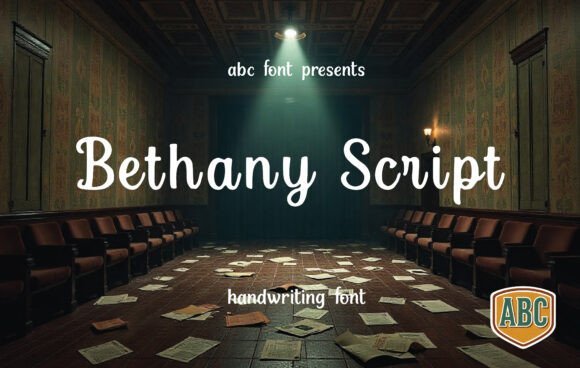
The Perfect Brushstroke: Unleashing the Beauty of Bethany Script Font
Enter the lovely Bethany Script Font, a timeless handwritten font that’s sure to captivate your audience. With its unique and beautiful touch, this font is perfect for creating eye-catching logos, branding, and quotes that make your design come alive. Whether you’re crafting wedding stationery, designing journals, or creating social media magic, Bethany Script Font is a valuable addition to any designer’s toolkit.
Bethany Script Font Key Features
- Font Style: Elegant script font with a classic and sophisticated feel
- Unique Characteristics: Handwritten feel, subtle flourishes, and elegant connections between letters
Bethany Script Font Review
I’ve had the chance to work with Bethany Script Font, and I must say, it’s a lovely script font that can add a touch of elegance to your designs. ✨ Here are some things that work well:
- Its flowing, handwritten feel makes it perfect for creating invitations, quotes, or other text-based graphics that need a personal touch.
- The font is highly customizable, allowing you to adjust the size, color, and spacing to fit your design needs.
- Bethany Script Font is highly legible, making it a great choice for longer blocks of text or for use in digital interfaces.
- The font may not be suitable for use in small sizes, as the details can become hard to read.
- The font’s flowing nature can sometimes make it difficult to align with other fonts or text elements.
- The font’s high customizability can also make it overwhelming to use, especially for those who are not familiar with font customization.
Overall, I think Bethany Script Font is a great addition to any designer’s toolkit, but it’s not without its limitations. With some careful planning and execution, it can add a beautiful, elegant touch to your designs.
For a more polished look, use Bethany Script Font for headings and pair it with a clean sans-serif font for body text.
Use Bethany Script Font for titles, headings, and other decorative text elements to add a touch of elegance to your design.
Use Bethany Script Font for headings, titles, and other decorative text elements to add a touch of sophistication to your presentation or document.
Tips for Getting the Most Out of Bethany Script Font
Use Bethany Script Font sparingly to avoid overwhelming the viewer.
Pair Bethany Script Font with clean, sans-serif fonts for a balanced look.
Experiment with different font sizes, colors, and styles to find the perfect combination for your design.
Alternatives to Bethany Script Font for Designers
Great Vibes is a beautiful, elegant script font that’s perfect for creating a warm and inviting atmosphere. It’s great for use in wedding invitations, greeting cards, and other special occasions where a touch of sophistication is needed.
Compared to Bethany Script Font, Great Vibes has a more flowing and organic feel, with a softer and more delicate appearance. While Bethany Script Font is more formal and elegant, Great Vibes is more relaxed and casual.
Ostrich Sans is a modern, sans-serif font with a touch of script flair. It’s perfect for use in digital design, such as websites, social media, and mobile apps, where a clean and modern look is needed.
Compared to Bethany Script Font, Ostrich Sans has a more minimalist and modern feel, with a focus on clean lines and simplicity. While Bethany Script Font is more traditional and elegant, Ostrich Sans is more contemporary and edgy.
Alex Brush is a elegant and refined script font that’s perfect for use in high-end branding, advertising, and publishing. It’s great for creating a sense of luxury and sophistication, and is particularly well-suited for use in editorial and magazine design.